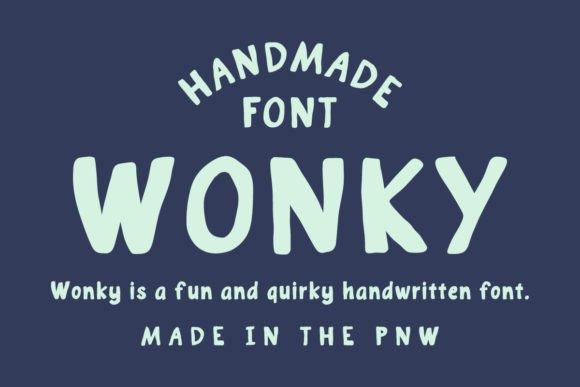
Unleash your inner creativity with Wonky Font - the playful and whimsical handwritten script font that will transform your designs into charming masterpieces. Crafted with passion by Happy Squatch Studios, Wonky is more than just a font; it's a gateway to a world of endless possibilities, where your imagination takes center stage.
With its distinctively playful and casual style, Wonky Font adds a touch of magic to every project it graces. Its vibrant, hand-drawn characters exude a sense of authenticity and warmth, inviting your audience into a world of storytelling and imagination.
Whether you're a seasoned designer or just starting your creative journey, Wonky Font is your perfect companion. Its versatility knows no bounds, seamlessly adapting to a myriad of design endeavors. From heartfelt greeting cards that convey emotions straight from the heart, to whimsical posters that ignite smiles, Wonky Font brings your vision to life with effortless elegance.
Step into the realm of digital artistry and let Wonky Font guide you through a kaleidoscope of creative expression. With its captivating curves and charming imperfections, Wonky Font adds a touch of magic to your social media posts, captivating your audience with its unique allure. Your designs will stand out from the crowd, leaving an unforgettable impression that resonates with your target audience.
So, why settle for ordinary fonts when you can embrace the extraordinary? Embrace the delightful charm of Wonky Font and watch your creative endeavors flourish. Its allure is undeniable, its potential boundless. Let Wonky Font be your muse, your creative partner, and your ticket to a world of design brilliance. Download it today and embark on a journey of boundless creativity!
Dive into the world of Wonky Font and let your imagination run wild. Whether you're a seasoned designer or just starting out, this handwritten font will elevate your projects with its unique charm. Discover the endless possibilities that await you, and let Wonky Font help you create designs that inspire, captivate, and leave a lasting impression.